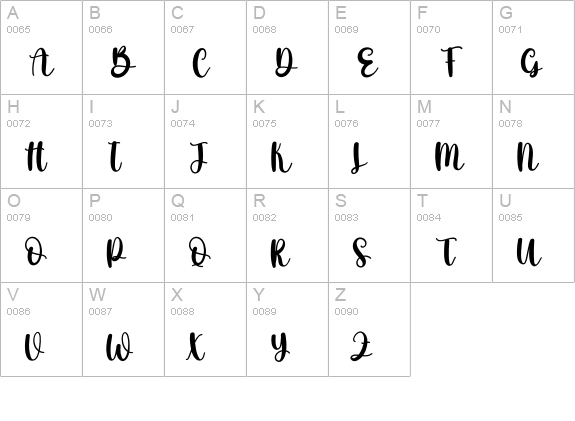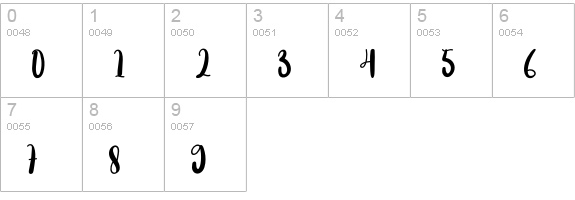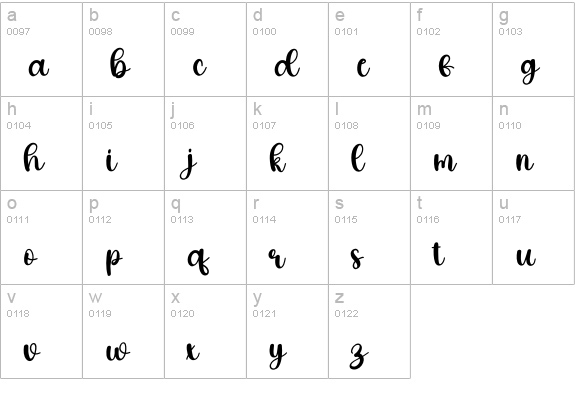
Handheld Font Details
Handheld is a free for personal use font in the Script > Handwritten category, designed by scratchones. It has been downloaded 19 times and is available for Windows, Mac and Linux.
The Handheld font is a modern and versatile typeface that adds a unique touch to any design project. With its sleek lines and contemporary style, Handheld is perfect for creating eye-catching headlines, logos, posters, and more. This free font offers a wide range of glyphs and characters, making it suitable for various languages and design needs.